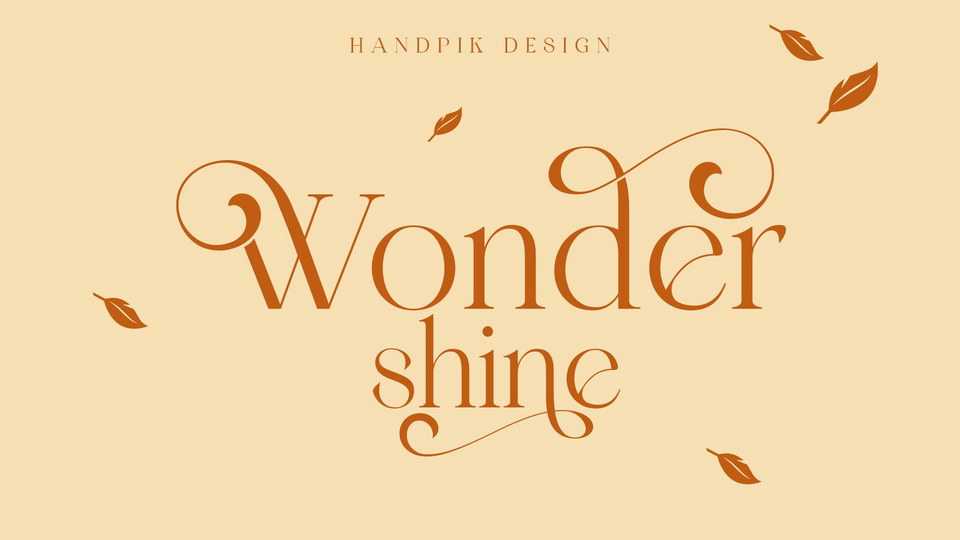
Download Wondershine font, a beautiful, elegant and smooth display serif typeface. Wondershine is suitable for logos, weddings, invitation cards, decorations, clothing products, greeting cards and others.